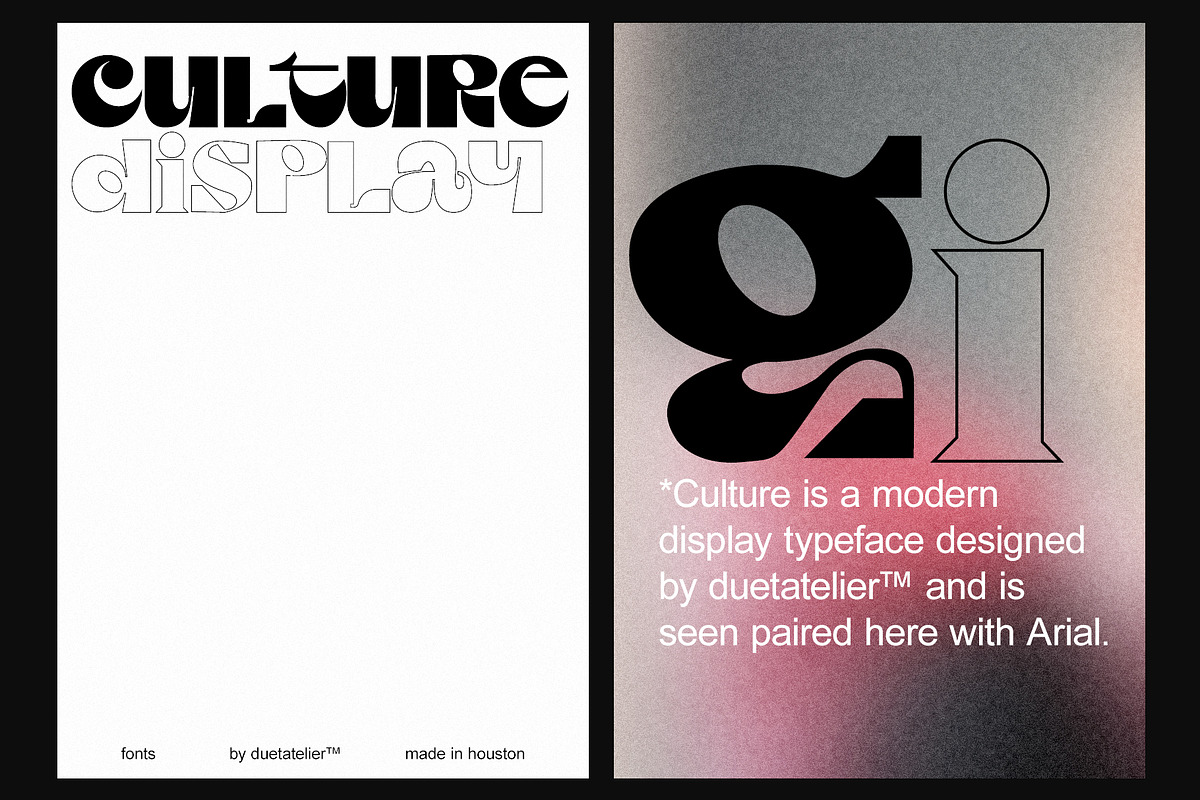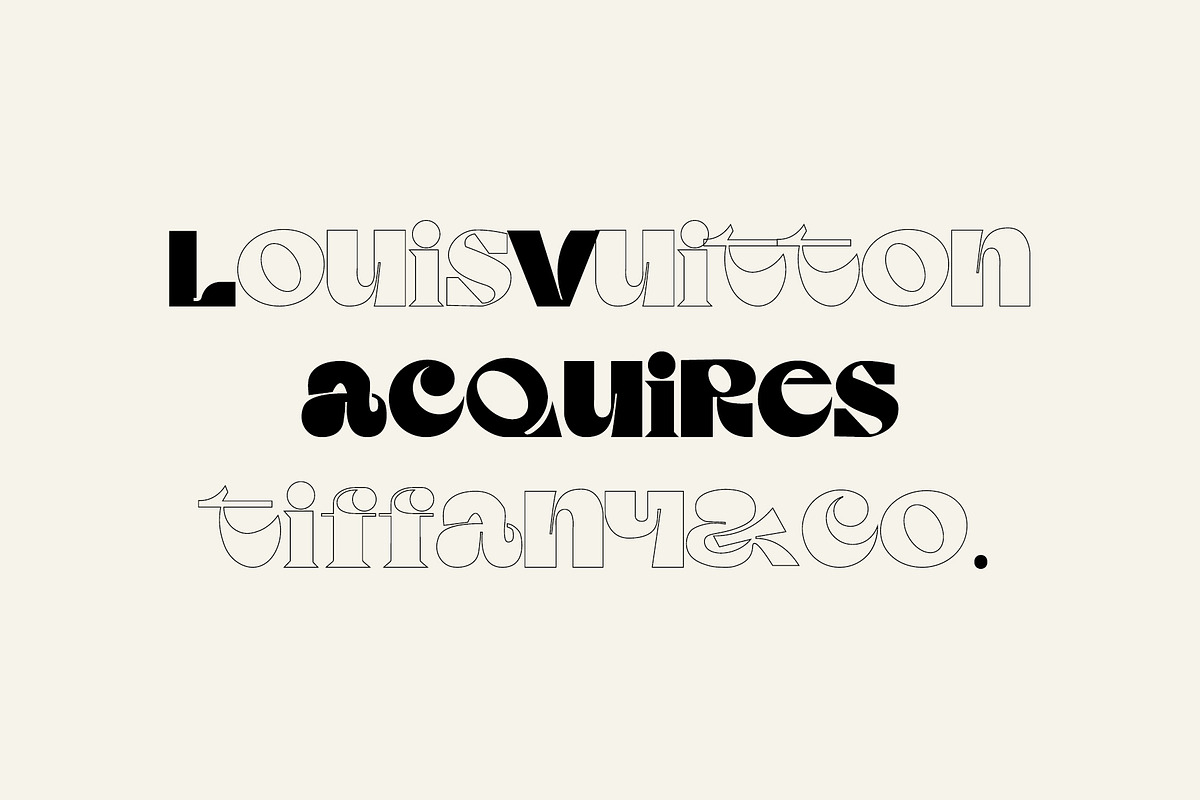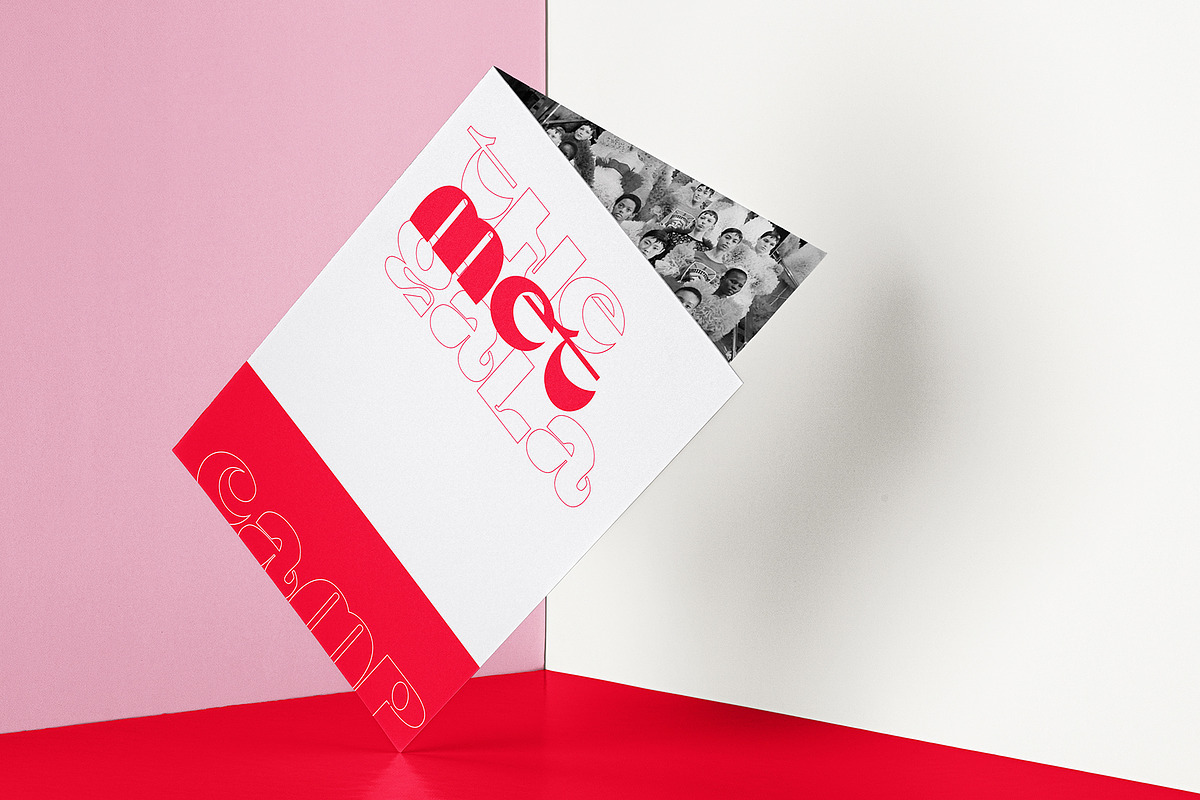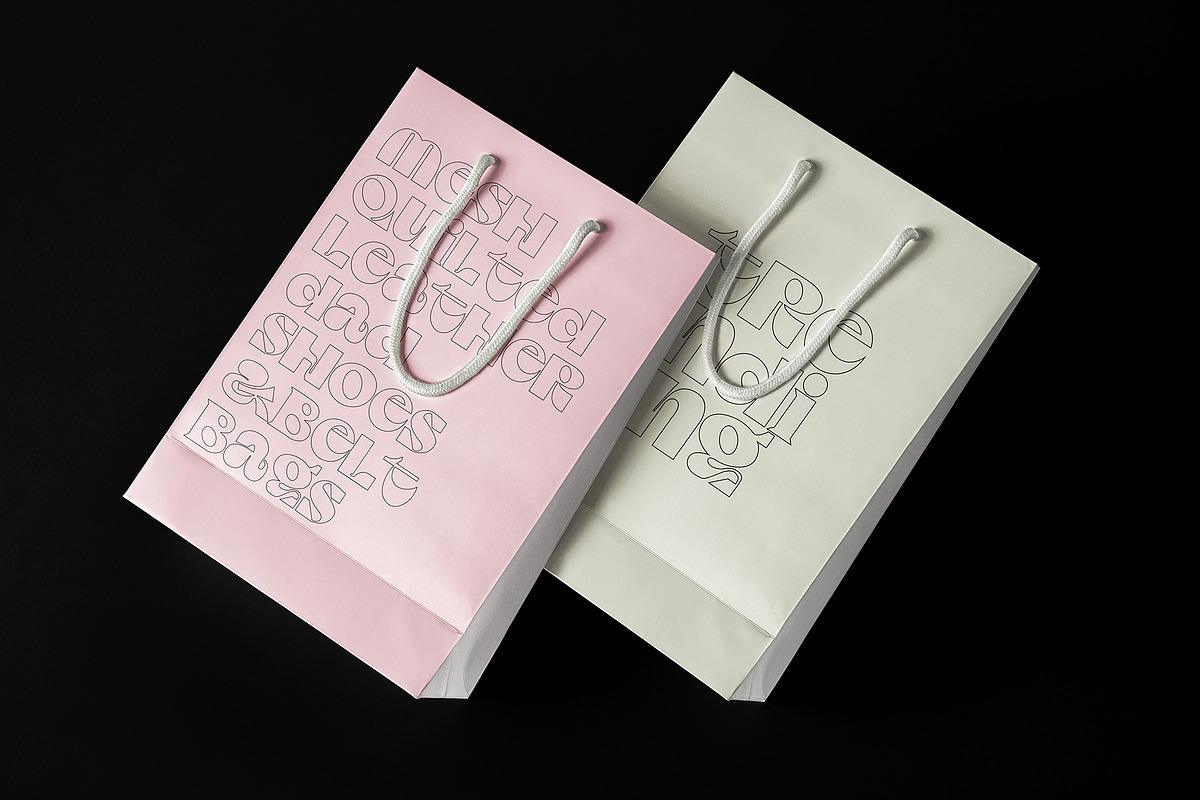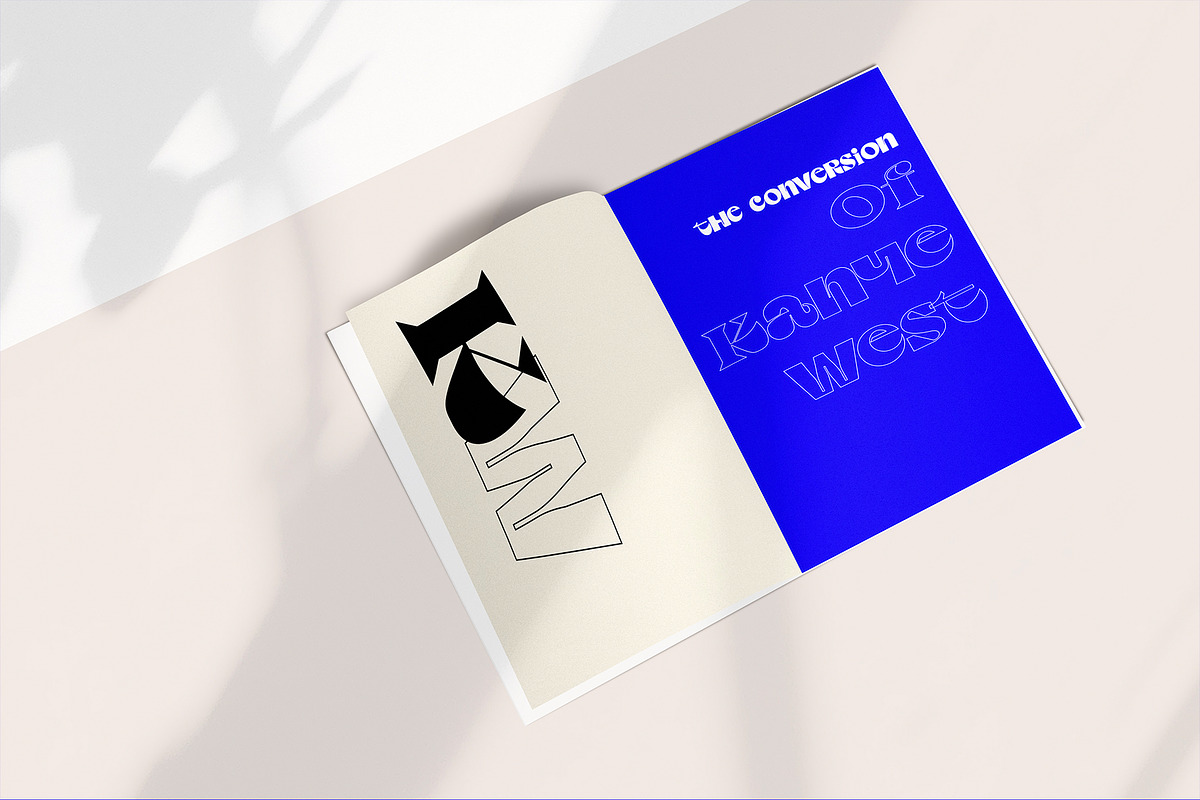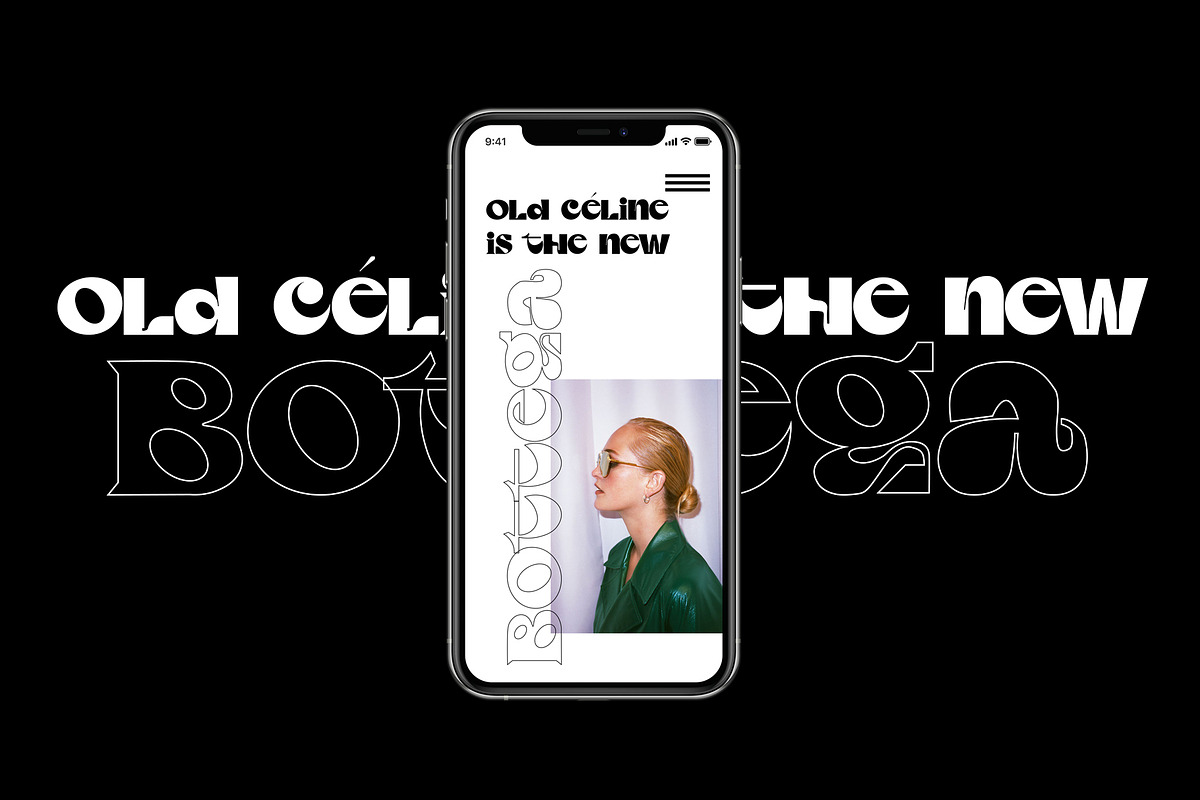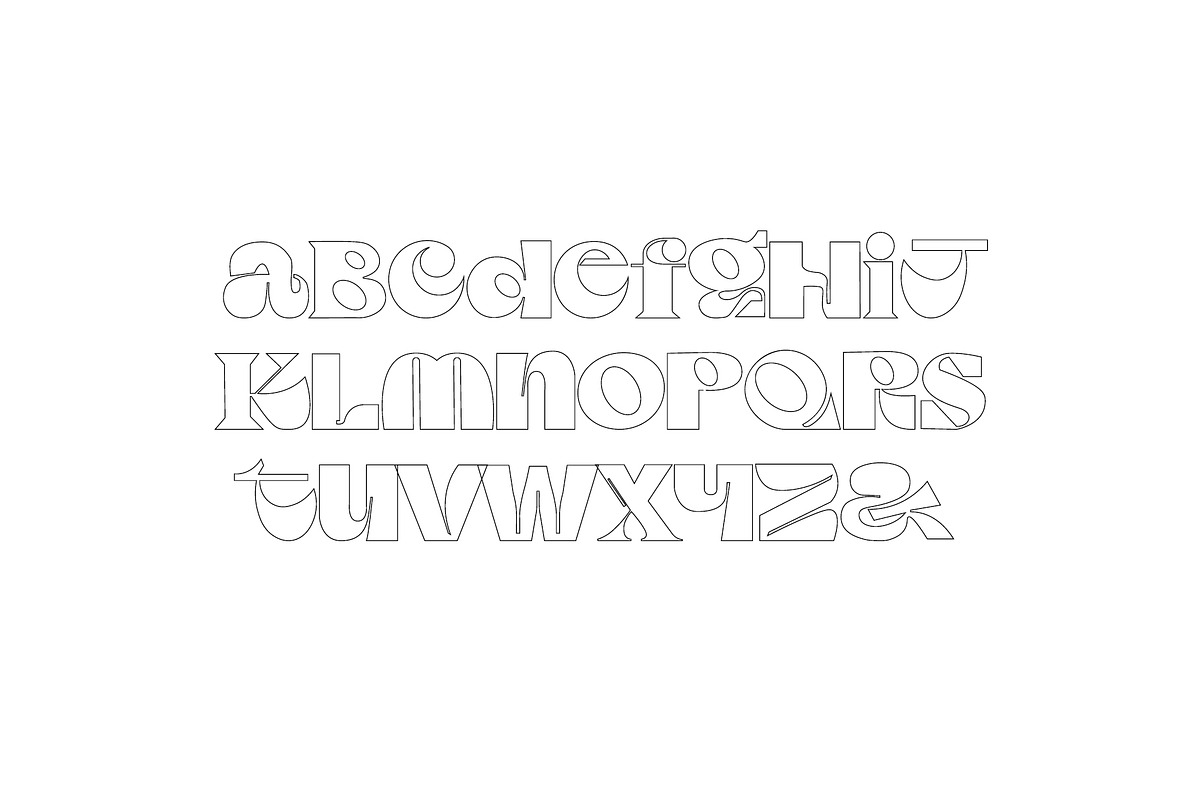
Culture Display Font
Inspired by modernity, Culture Display is a unique set of unexpected characters. This font pairs well with classic sans serifs like Arial or Helvetica. Easily toggle caps on and off to use the outline or solid version of the font.
- About Culture Inspired by modernity, Culture Display is a unique set of unexpected characters.
Culture Display Font by Duet Atelier fits naturally into Branding, posters, packaging, typography.